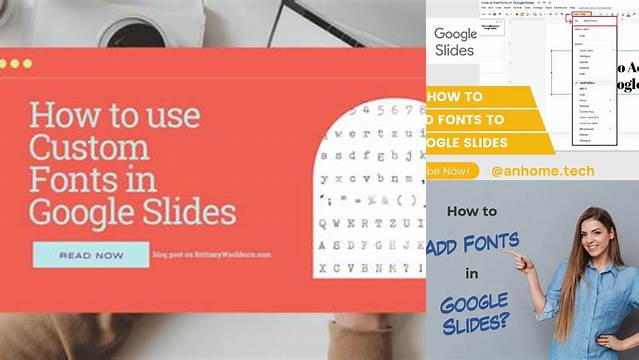
Unlock 1000+ Fonts In Google Slides: A Quick Guide
Hey guys! Ever felt limited by the standard fonts in Google Slides? Want to spice up your presentations and make them truly unique? Well, you're in luck! This guide will show you how to unlock a treasure trove of over 1001 fonts and take your Google Slides game to the next level. Let’s dive in!
1. Understanding Google Slides Font Options
So, you're probably wondering what font options Google Slides offers right out of the box. Google Slides comes with a decent selection of fonts, but let’s be real, sometimes you need something more. The default fonts are practical and professional, but they don’t always scream personality. Understanding what's available by default helps you appreciate the vast possibilities you’ll unlock later. Think of the standard fonts as your reliable basics – Arial, Times New Roman, and a few others. They're great for clarity and readability, especially in formal presentations. However, for more creative or brand-focused presentations, you'll likely want to explore beyond these basics. This limited selection can sometimes feel restrictive, especially when you're trying to match a specific brand aesthetic or create a visually stunning presentation. Many users find themselves wanting more variety and unique options to truly make their slides stand out. Luckily, Google Slides provides ways to expand your font library, offering flexibility and creativity in your design process. By understanding these initial limitations, you can better appreciate the power of adding custom fonts and the impact they can have on your overall presentation.
2. Adding Fonts from Google Fonts Directly
The easiest way to expand your font library is by adding fonts directly from Google Fonts. This is a seamless process since Google Fonts is integrated directly into Google Slides. To do this, simply click on the font dropdown menu in Google Slides. Scroll to the bottom and click on "More fonts." This will open a new window where you can browse through hundreds of Google Fonts. You can filter fonts by category (serif, sans-serif, display, handwriting, monospace), popularity, trending, or alphabetical order. Once you find a font you like, simply click on it to add it to your "My fonts" list. You can select multiple fonts at once. After you've made your selections, click "OK," and the new fonts will be available in your font dropdown menu. This method is incredibly convenient and provides a wide range of high-quality, free-to-use fonts. Using Google Fonts ensures compatibility and avoids any licensing issues, making it a safe and reliable way to enhance your presentations. Plus, with such a vast library, you're sure to find the perfect font to match your presentation's style and message. Seriously guys, this is a game changer!
3. Using Script Fonts for a Personal Touch
Want to add a touch of elegance or personality to your slides? Script fonts are your go-to! These fonts mimic handwriting and can make your presentations feel more personal and engaging. However, it's important to use them sparingly. Overusing script fonts can make your slides difficult to read, especially for larger audiences. Reserve script fonts for headings, titles, or short quotes where readability isn't as crucial. When selecting a script font, consider its legibility. Some script fonts are highly decorative but can be challenging to decipher at a glance. Opt for cleaner, more readable script fonts for better impact. Google Fonts offers a variety of script fonts, from classic calligraphy styles to modern brush scripts. Experiment with different options to find the perfect fit for your presentation. Think about the overall tone and message of your slides. A formal presentation might benefit from a traditional script font, while a more creative presentation could use a modern, playful script. Using script fonts effectively can add a unique and memorable element to your slides, making them stand out from the crowd. Just remember, less is often more when it comes to script fonts. Balance is key to achieving a polished and professional look.
4. Serif vs. Sans-Serif: Making the Right Choice
Choosing between serif and sans-serif fonts is a fundamental decision in presentation design. Serif fonts, with their small decorative strokes (serifs) at the end of each character, are often perceived as more traditional and formal. They are generally a good choice for body text in printed materials because the serifs help guide the eye across the page, improving readability. Sans-serif fonts, on the other hand, lack these decorative strokes and have a cleaner, more modern look. They tend to be more readable on screens, making them a popular choice for websites and digital presentations. In Google Slides, consider using serif fonts for headings and titles to add a touch of elegance, while using sans-serif fonts for the main body text to ensure clarity and readability. However, these are just guidelines, and the best choice ultimately depends on the specific context and style of your presentation. Experiment with different combinations of serif and sans-serif fonts to find what works best for you. Consider the overall tone and message of your presentation. A formal presentation might benefit from a classic serif font, while a more modern presentation could use a clean, minimalist sans-serif font. The key is to choose fonts that enhance your message and make your slides easy to read and visually appealing.
5. Pairing Fonts Like a Pro
Font pairing is the art of combining two or more fonts in a way that creates visual harmony and enhances readability. A well-paired font combination can elevate your presentation and make it look more professional and polished. The general rule of thumb is to pair a serif font with a sans-serif font. This creates contrast and visual interest while maintaining balance. For example, you could pair a serif font like Merriweather for your headings with a sans-serif font like Open Sans for your body text. Another approach is to use different weights and styles of the same font family. For example, you could use a bold version of Roboto for your headings and a regular version of Roboto for your body text. This creates a cohesive look while still providing visual distinction. When pairing fonts, consider the overall tone and message of your presentation. A formal presentation might benefit from a classic and elegant font pairing, while a more creative presentation could use a bolder and more unconventional pairing. Experiment with different combinations and see what works best for you. There are many online resources that offer font pairing suggestions and inspiration. Don't be afraid to try new things and develop your own unique style. Ultimately, the best font pairing is one that enhances your message and makes your slides easy to read and visually appealing.
6. Uploading Custom Fonts to Google Drive
While Google Fonts offers a vast selection, sometimes you need a specific font that's not available in their library. In such cases, you can upload custom fonts to your Google Drive and then use them in Google Slides. To do this, you'll need to obtain the font file in a compatible format, such as TTF (TrueType Font) or OTF (OpenType Font). Once you have the font file, simply upload it to your Google Drive. After uploading, open your Google Slides presentation and click on the font dropdown menu. Scroll to the bottom and click on "More fonts." In the "More fonts" window, click on the "Upload fonts" tab. This will allow you to select the font file from your Google Drive. Once the font is uploaded, it will be available in your font dropdown menu. Keep in mind that using custom fonts may affect the compatibility of your presentation when sharing it with others. If the recipient doesn't have the custom font installed on their computer, Google Slides will substitute it with a default font. To avoid this issue, you can embed the font in your presentation or ask the recipient to install the font on their computer. Uploading custom fonts gives you greater flexibility and control over your presentation's design, allowing you to use unique and branded fonts that aren't available in Google Fonts.
7. Embedding Fonts for Compatibility
Embedding fonts in your Google Slides presentation is a crucial step to ensure that your slides look the same on everyone's computer, regardless of whether they have the custom fonts installed or not. When you embed fonts, the font files are included within the presentation file itself, so the recipient doesn't need to have the fonts installed on their system. Unfortunately, Google Slides doesn't directly support font embedding like some other presentation software. However, there are workarounds you can use to achieve a similar result. One option is to convert your slides to a PDF file with embedded fonts. Most PDF converters offer the option to embed fonts, ensuring that the PDF version of your presentation will display correctly on any device. Another option is to use Google Drawings to create your slides. Google Drawings supports font embedding, so you can create your presentation in Drawings and then import it into Google Slides. While these workarounds may require a bit more effort, they are essential for ensuring that your presentation looks its best when shared with others. By embedding fonts, you can avoid font substitution issues and maintain the integrity of your design.
8. Troubleshooting Font Display Issues
Sometimes, you might encounter font display issues in Google Slides, such as fonts not displaying correctly, fonts being substituted, or fonts appearing distorted. These issues can be frustrating, but there are several troubleshooting steps you can take to resolve them. First, make sure that the font is properly installed on your computer. If you're using a custom font, ensure that it's installed correctly and that the font file is not corrupted. Second, try clearing your browser's cache and cookies. Sometimes, cached data can interfere with font rendering. Third, try using a different browser or device. This can help you determine if the issue is specific to your browser or device. Fourth, check your Google Slides settings. Make sure that the "Substitute fonts" option is not enabled. This option can cause Google Slides to substitute your chosen fonts with default fonts. If you're still experiencing issues, try contacting Google Slides support for assistance. They may be able to provide more specific troubleshooting steps based on your situation. Remember, persistence is key when troubleshooting font display issues. Don't give up until you've exhausted all possible solutions.
9. Organizing Your Font Library
As you start adding more and more fonts to your Google Slides library, it's important to keep them organized. A well-organized font library will make it easier to find the fonts you need and prevent you from wasting time scrolling through a long list of fonts. One way to organize your font library is to use categories or tags. For example, you could create categories for serif fonts, sans-serif fonts, script fonts, and display fonts. You can also use tags to indicate the style or purpose of the font, such as "formal," "casual," "modern," or "headline." Another way to organize your font library is to use a font management tool. There are many font management tools available that allow you to preview, activate, and deactivate fonts. These tools can also help you identify and resolve font conflicts. Regardless of the method you choose, the key is to establish a system that works for you and stick to it. A well-organized font library will save you time and effort in the long run and help you create more visually appealing presentations.
10. Finding Free Font Resources
One of the biggest challenges in presentation design is finding high-quality fonts that are free to use. Fortunately, there are many excellent resources available that offer free fonts for personal and commercial use. Google Fonts is an obvious choice, with its vast library of open-source fonts. Another great resource is Font Squirrel, which offers a curated selection of free fonts that are licensed for commercial use. Dafont is another popular website that offers a wide variety of free fonts, although you should always check the license before using them for commercial purposes. When downloading free fonts, be sure to download them from reputable sources to avoid downloading malware or viruses. Always check the license agreement to ensure that you're allowed to use the font for your intended purpose. With a little bit of research, you can find a wealth of free fonts that will enhance your presentations without breaking the bank.
11. Font Licensing: What You Need to Know
Understanding font licensing is crucial to avoid legal issues when using fonts in your presentations. Font licenses dictate how you can use a font, including whether you can use it for commercial purposes, embed it in documents, or modify it. There are several types of font licenses, each with its own terms and conditions. Some fonts are licensed under open-source licenses, such as the SIL Open Font License, which allows you to use, modify, and distribute the font freely. Other fonts are licensed under commercial licenses, which may require you to purchase a license for commercial use. Always read the font license agreement carefully before using a font to ensure that you're complying with the terms and conditions. If you're unsure about the terms of a font license, it's best to err on the side of caution and contact the font designer or foundry for clarification. Ignoring font licensing can lead to legal trouble, so it's always best to be informed.
12. Using Font Psychology to Your Advantage
Did you know that fonts can evoke certain emotions and associations? This is known as font psychology, and it can be a powerful tool for enhancing your presentations. Different fonts can convey different messages and create different impressions on your audience. For example, serif fonts are often perceived as more traditional, formal, and trustworthy, while sans-serif fonts are seen as more modern, clean, and approachable. Script fonts can add a touch of elegance and personality, while display fonts can grab attention and create a bold statement. When choosing fonts for your presentation, consider the emotions and associations you want to evoke. Think about your target audience and the message you want to convey. By using font psychology to your advantage, you can create presentations that are more engaging, persuasive, and memorable.
13. Creating a Consistent Brand Identity with Fonts
Fonts play a crucial role in creating a consistent brand identity. Your brand's fonts should be consistent across all your marketing materials, including your website, logo, and presentations. Using the same fonts consistently will help people recognize and remember your brand. When choosing fonts for your brand, consider your brand's personality and values. Are you a traditional and reliable brand? Or are you a modern and innovative brand? Choose fonts that reflect your brand's personality and values. Once you've chosen your brand fonts, create a brand style guide that outlines how to use them. This will ensure that everyone in your organization is using the fonts consistently. A consistent brand identity will help you build trust and credibility with your audience.
14. Accessibility Considerations for Font Choice
When choosing fonts for your presentations, it's important to consider accessibility. Some fonts are more accessible than others, especially for people with visual impairments. Choose fonts that are easy to read and have good contrast with the background. Avoid using fonts that are too small, too thin, or too decorative. Use a font size that is large enough for everyone to read comfortably. Also, make sure that there is sufficient contrast between the text and the background. Use a color contrast checker to ensure that your font and background colors meet accessibility guidelines. By choosing accessible fonts, you can make your presentations more inclusive and ensure that everyone can understand your message.
15. Best Font Combinations for Professional Slides
Choosing the right font combinations can significantly enhance the visual appeal and readability of your professional slides. Here are some of the best font combinations that work well in Google Slides: Arial (Sans-serif) + Times New Roman (Serif): A classic and reliable combination that provides excellent readability. Open Sans (Sans-serif) + Merriweather (Serif): A modern and clean combination that is perfect for business presentations. Roboto (Sans-serif) + Slabo 27px (Serif): A bold and eye-catching combination that is great for headlines and titles. Lato (Sans-serif) + Raleway (Sans-serif): A sophisticated and elegant combination that is ideal for creative presentations. Experiment with different font combinations to find what works best for your brand and message. Use online font pairing tools to get inspiration and ideas. Remember to prioritize readability and visual appeal when choosing font combinations for your professional slides.
16. How to Use Different Font Styles Effectively
Using different font styles effectively can add visual interest and emphasis to your presentations. Font styles include bold, italic, underline, and strikethrough. Use bold to highlight important keywords or phrases. Use italic to emphasize certain words or to indicate quotes or titles. Use underline sparingly, as it can make text more difficult to read. Use strikethrough to indicate deleted or outdated information. Don't overuse font styles, as this can make your slides look cluttered and unprofessional. Use font styles intentionally to draw attention to key information and enhance the overall visual appeal of your presentation. Remember that consistency is key, so use font styles consistently throughout your presentation.
17. Updating Fonts Across an Entire Presentation
Need to change the font across your entire presentation? No problem! Google Slides makes it easy to update fonts globally, saving you tons of time and effort. Simply go to the "Slide" menu and select "Edit theme." In the theme editor, you can change the fonts for different slide elements, such as titles, subtitles, and body text. Once you've made your changes, click "Apply to all" to update the fonts across your entire presentation. This is a huge time-saver, especially for long presentations with many slides. You can also use the theme editor to change other design elements, such as colors and backgrounds. Using themes can help you create a consistent and professional look for your presentations.
18. Common Mistakes to Avoid When Using Fonts
Using fonts effectively is essential for creating visually appealing and professional presentations. However, there are several common mistakes that you should avoid. Don't use too many different fonts in one presentation. This can make your slides look cluttered and confusing. Don't use fonts that are difficult to read, such as overly decorative or script fonts. Don't use font sizes that are too small or too large. Don't use font colors that have poor contrast with the background. Don't use font styles excessively, such as too much bold or italic. By avoiding these common mistakes, you can create presentations that are visually appealing, easy to read, and professional.
19. Exploring Font Alternatives for Popular Choices
Sometimes, you might want to explore font alternatives for popular choices to add a unique touch to your presentations. For example, if you're tired of using Arial, you could try Open Sans or Lato. If you're looking for an alternative to Times New Roman, you could try Merriweather or PT Serif. There are many excellent font alternatives available that can help you create a more distinctive and memorable presentation. Use online font identification tools to find similar fonts based on visual characteristics. Experiment with different font alternatives to find what works best for your brand and message. Remember that the goal is to choose fonts that are readable, visually appealing, and consistent with your brand identity.
20. Creating Font Templates for Future Use
To save time and ensure consistency, consider creating font templates for future use. A font template is a pre-designed slide deck with your chosen fonts, colors, and styles already set up. You can then use this template as a starting point for new presentations. Creating font templates can help you streamline your design process and ensure that your presentations are always on-brand. Save your font templates as theme files in Google Slides for easy access. You can create multiple font templates for different types of presentations, such as sales presentations, training presentations, or marketing presentations. By creating font templates, you can save time, ensure consistency, and create more professional-looking presentations.
21. Optimizing Fonts for Different Screen Sizes
With presentations being viewed on a variety of devices, optimizing fonts for different screen sizes is crucial. A font that looks great on a large desktop monitor might be illegible on a small smartphone screen. To optimize fonts for different screen sizes, use responsive font sizing techniques. This involves using relative units, such as percentages or ems, to specify font sizes. Relative units allow fonts to scale proportionally based on the screen size. Also, test your presentations on different devices to ensure that the fonts are readable and visually appealing. Consider using different font sizes for different screen sizes. For example, you might use a larger font size for mobile devices and a smaller font size for desktop computers. By optimizing fonts for different screen sizes, you can ensure that your presentations look great on any device.
22. Using Font Animations and Transitions Effectively
Font animations and transitions can add visual interest and dynamism to your presentations. However, it's important to use them sparingly and effectively. Overusing font animations and transitions can be distracting and detract from your message. Use font animations and transitions to draw attention to key information or to create a sense of movement and flow. Choose font animations and transitions that are subtle and professional. Avoid using overly flashy or distracting animations. Also, make sure that the font animations and transitions are consistent with the overall tone and style of your presentation. By using font animations and transitions effectively, you can enhance the visual appeal of your presentations and keep your audience engaged.
23. Font Size Matters: Finding the Perfect Fit
Font size plays a critical role in the readability and impact of your Google Slides. Choosing the right font size ensures your audience can easily read your content, regardless of where they are in the room (or viewing remotely!). For headings and titles, aim for a font size between 36 and 48 points. This makes them stand out and grab attention. Body text should be between 24 and 32 points to ensure comfortable reading. Consider the room size and the distance of the audience from the screen when choosing your font sizes. If you're presenting in a large room, you might need to increase the font size to ensure readability. Always test your presentation in the actual venue to see how the font sizes look. Remember, readability trumps aesthetics. A beautiful font is useless if no one can read it!
24. Color Contrast and Font Visibility
Color contrast is super important, guys! If your font color is too similar to your background color, your text will be hard to read. Use a color contrast checker tool to make sure your text is visible to everyone, including those with visual impairments. High contrast is always a safe bet – think dark text on a light background, or vice versa. Avoid using light text on a light background, or dark text on a dark background. Pay attention to the color palette of your brand and choose font colors that complement your brand identity while maintaining sufficient contrast. Remember, accessibility is key – make sure your slides are inclusive and easy to read for everyone. A little extra effort in choosing the right color contrast can go a long way in making your presentation more effective.
25. Using Special Characters and Glyphs
Special characters and glyphs can add a unique flair to your Google Slides. Many fonts include a variety of special characters, such as symbols, icons, and ligatures. These can be used to enhance the visual appeal of your slides and add extra meaning to your text. To access special characters, use the character map or glyph panel in your operating system. Copy and paste the special characters into your Google Slides. Be careful not to overuse special characters, as this can make your slides look cluttered and unprofessional. Use them sparingly to highlight important information or to add a touch of personality. Remember, the goal is to enhance your message, not to distract from it.
26. Mobile Optimization of Google Slides Fonts
In today's mobile-first world, optimizing your Google Slides for mobile viewing is essential. Many people will be viewing your presentations on their smartphones or tablets, so it's important to make sure that your fonts are readable and visually appealing on smaller screens. Use responsive font sizing techniques to ensure that your fonts scale proportionally on different screen sizes. Test your presentations on mobile devices to see how the fonts look. Consider using larger font sizes for mobile devices to improve readability. Also, make sure that your slides are optimized for touch interaction. Use buttons and links that are large enough to be easily tapped on a touchscreen. By optimizing your Google Slides for mobile, you can ensure that your presentations are accessible and engaging for everyone, regardless of the device they're using.
27. Mastering Font Hierarchy for Impact
Font hierarchy is the arrangement of fonts in a way that guides the viewer's eye and helps them understand the structure of your content. A well-defined font hierarchy makes it easy for your audience to quickly grasp the key points of your presentation. Use different font sizes, weights, and styles to create a visual hierarchy. Headings should be the largest and boldest fonts, followed by subheadings, and then body text. Use color to further differentiate the different levels of the hierarchy. Also, use whitespace effectively to separate different sections of your content. By mastering font hierarchy, you can create presentations that are visually clear, easy to understand, and highly impactful.
28. Backing Up and Sharing Your Custom Font Collection
If you've built up a collection of custom fonts, it's important to back them up and have a system for sharing them with others. You never know when you might need to reinstall your operating system or switch to a new computer. Backing up your fonts ensures that you won't lose your valuable collection. Simply copy your font files to an external hard drive, cloud storage service, or other backup location. When sharing your fonts with others, make sure that you have the necessary licenses to do so. Some fonts are free to use, while others require a commercial license. If you're not sure about the license terms, it's best to err on the side of caution and avoid sharing the font. Also, be sure to package your fonts in a compressed format, such as ZIP, to make them easier to download and share. By backing up and sharing your custom font collection responsibly, you can ensure that your fonts are always available when you need them.
29. The Future of Fonts in Google Slides
What does the future hold for fonts in Google Slides? As technology continues to evolve, we can expect to see even more advanced font features and capabilities in Google Slides. We may see better support for variable fonts, which allow for greater flexibility and customization. We may also see improved integration with font management tools and services. Google may also introduce new font-related features, such as automatic font pairing suggestions and font accessibility checkers. One thing is certain: fonts will continue to play a crucial role in presentation design. By staying up-to-date with the latest font trends and technologies, you can create presentations that are visually stunning, highly engaging, and truly impactful.
30. Staying Updated on Font Trends and Best Practices
To create cutting-edge presentations, it's crucial to stay updated on the latest font trends and best practices. The world of typography is constantly evolving, with new fonts, techniques, and technologies emerging all the time. Follow typography blogs, magazines, and social media accounts to stay informed about the latest trends. Attend design conferences and workshops to learn from industry experts. Experiment with new fonts and techniques to see what works best for you. Also, pay attention to the presentations of other designers and see how they're using fonts effectively. By staying updated on font trends and best practices, you can create presentations that are fresh, modern, and highly effective.